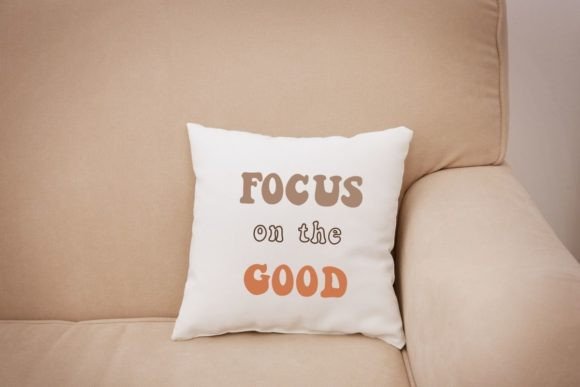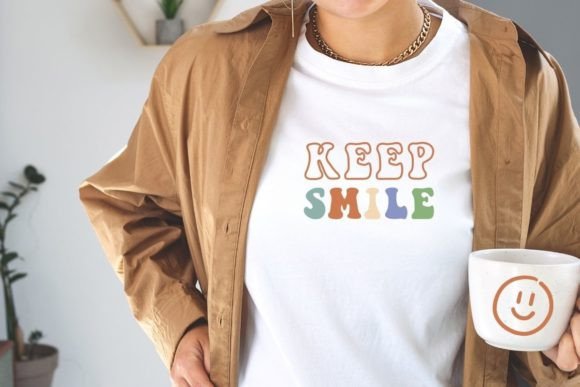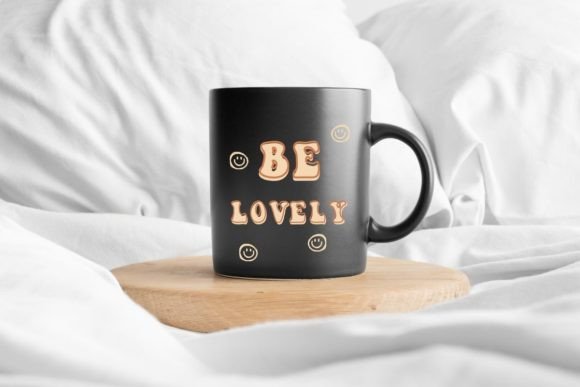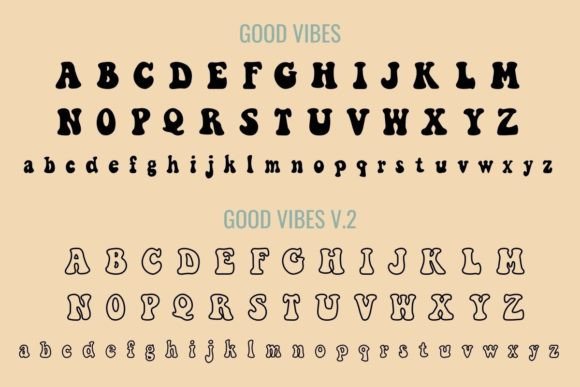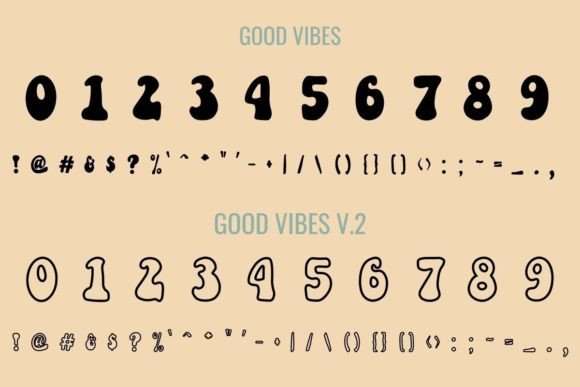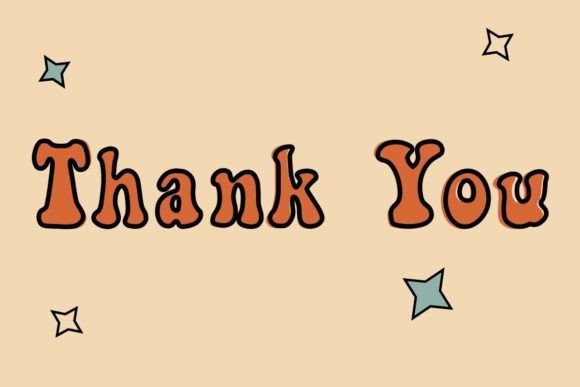
Introducing Good Vibes Font: The Ultimate Groovy Style Font for Creative Projects
Are you a designer, crafter, or DIY enthusiast looking for a font that embodies the spirit of fun and creativity? Look no further than Good Vibes Font, a retro-styled display font that’s perfect for bringing your ideas to life. With its groovy style and versatility, Good Vibes Font is ideal for a wide range of projects, from branding and posters to t-shirts, stickers, and wall art.
The Perfect Font for Creative Projects
Good Vibes Font is a fun and playful font that’s designed to add a touch of personality to your projects. Its retro style is reminiscent of the 1960s and 1970s, with a laid-back, carefree vibe that’s perfect for creating eye-catching designs. Whether you’re working on a branding project, creating a poster or flyer, or designing a t-shirt or sticker, Good Vibes Font is the perfect choice.
Key Features of Good Vibes Font
- Retro-style design: Good Vibes Font features a classic retro-style design that’s perfect for creating groovy and eye-catching designs.
- Display font: Good Vibes Font is a display font, making it perfect for headlines, titles, and other display text.
- Versatile: Good Vibes Font can be used for a wide range of projects, from branding and posters to t-shirts, stickers, and wall art.
Ideas for Using Good Vibes Font
Good Vibes Font is a versatile font that can be used for a wide range of projects. Here are some ideas to get you started:
- Branding: Use Good Vibes Font to create eye-catching logos and branding materials that reflect your company’s personality.
- Posters and flyers: Create eye-catching posters and flyers with Good Vibes Font, perfect for promoting events, products, or services.
- T-shirts and apparel: Design custom t-shirts and apparel with Good Vibes Font, perfect for creating unique and eye-catching designs.
- Stickers and decals: Use Good Vibes Font to create custom stickers and decals, perfect for laptops, water bottles, and more.
- Wall art: Create eye-catching wall art with Good Vibes Font, perfect for adding a touch of personality to any room.
Why Choose Good Vibes Font?
So why choose Good Vibes Font for your next project? Here are just a few reasons:
- Unique and eye-catching: Good Vibes Font is a unique and eye-catching font that’s sure to grab attention.
- Versatile: Good Vibes Font can be used for a wide range of projects, making it a great addition to any designer’s toolkit.
- Groovy style: Good Vibes Font features a groovy style that’s perfect for creating designs that are fun, playful, and eye-catching.
In conclusion, Good Vibes Font is a fun and versatile font that’s perfect for designers, crafters, and DIY enthusiasts. With its retro-style design, groovy style, and ease of use, Good Vibes Font is ideal for a wide range of projects, from branding and posters to t-shirts, stickers, and wall art. So why wait? Get Good Vibes Font today and start bringing your creative ideas to life!